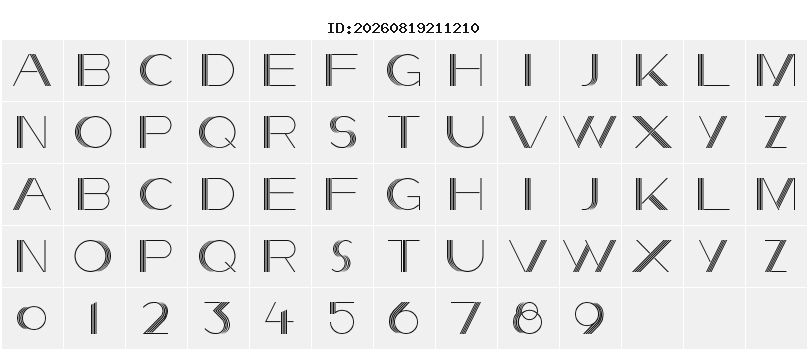
She Stole the Night Preview
• Font Name: She Stole the Night
• Full Font Name: She Stole the Night Regular
• Designer: Michał “Neoqueto” Nowak
About She Stole the Night.ttf
She Stole the Night.ttf is a modern, elegant sans-serif font designed for ultimate readability and visual harmony. Perfect for branding, headlines, web design, and print materials.